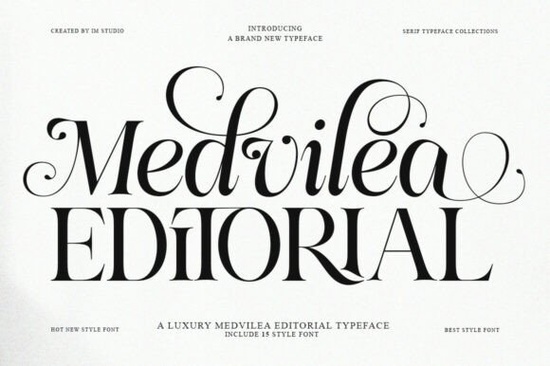
Medvilea Editorial Font
If you’re designing a high-end visual identity or a polished editorial layout, the right serif typeface can shape the entire mood. Medvilea Editorial Font gives you 15 precisely crafted styles that feel luxurious and modern without being fussy. It works beautifully for magazine headlines, fashion branding, product packaging, and any project that needs a touch of refined character.
I’ve worked with plenty of display serifs over the years, and what often makes or breaks a font family is how well the weights and widths play together. With Medvilea, you can build a complete typographic system from just one download regular, italic, condensed, expanded, and even extra-condensed italic variations all built to fit seamlessly.
What styles are included in the Medvilea family?
This collection packs 15 font styles into a single package. You get straightforward options for everyday use and more expressive alternatives for eye-catching headings.
• Standard – Regular & Italic
• Proportions – Condensed, Semi-Condensed, Expanded, Semi-Expanded, Extra-Expanded
• Dynamic variants – Semi-Condensed Italic, Extra-Condensed Italic, Expanded Italic, and additional italic combinations
The variety here is massive. Need a narrow, tall headline for a luxury fashion spread? Try the Condensed. Want a wide, confident wordmark? The Extra-Expanded variant delivers plenty of presence. Every style keeps the same subtle contrast and flowing curves, so the family never feels disjointed.
How can a multi-style serif family simplify branding projects?
Consistency across touchpoints is everything in branding. When you use multiple fonts from the same family, the underlying structure stays the same, so your business cards, social media graphics, and packaging all feel like part of the same story. Medvilea’s range means you can create clear information hierarchy light, airy italics for taglines, condensed weights for detail text, and bold expanded styles for logos without hunting for complementary typefaces.
Which projects benefit the most from a luxury editorial serif?
Designers working in fashion, beauty, lifestyle, and premium editorial spaces will find this font immediately useful. A few concrete uses:
• Fashion event posters and lookbooks – extra-condensed styles create dramatic, high-fashion headlines.
• Cosmetic and perfume packaging – the regular and italic weights add an unforced elegance to product labels.
• Luxury real estate brochures – expanded styles give a solid, trustworthy feel to property names.
• Web typography – use Semi-Condensed for site menus and Regular for pull quotes; the crisp outlines hold up well on screens.
• Craft business logos – print-on-demand sellers and small creative businesses can build memorable brand marks without hiring a custom type designer.
What multilingual support does Medvilea offer?
Many premium display fonts cut corners on language coverage, but Medvilea includes uppercase and lowercase characters plus extensive international support. Whether you’re setting a French perfume tagline, a German magazine title, or a Spanish social media quote, the full character set covers most European and Latin-based alphabets. This is a practical detail if you sell on global marketplaces or create content for diverse audiences.
How do you pair Medvilea with other typefaces?
Because Medvilea is a display serif with noticeable personality, it pairs best with neutral body fonts that don’t compete for attention. Here’s a simple starting guide:
• Clean sans‑serif – Inter, Work Sans, or Nunito Sans for modern editorial bodies.
• Soft humanist sans – Open Sans or Lato add warmth without stealing the show.
• Monospaced fonts – Space Mono or JetBrains Mono create a high-low contrast that works well for avant‑garde fashion content.
Always test your pairings at the sizes you’ll actually use. Medvilea’s fine details can get lost at very small text sizes, so keep it for headlines and larger UI elements.
Getting started with the Medvilea editorial collection
If you’re ready to add this typeface to your toolkit, this quick checklist will help you put the 15 styles to work right away:
1. Decide on your primary use logo, headline, packaging, or social asset.
2. Pick one or two key weights (e.g., Regular + Semi-Condensed) to anchor your hierarchy.
3. Experiment with width variations for contrast pair a condensed title with an expanded subtitle.
4. Test on both light and dark backgrounds; Medvilea’s smooth curves look crisp on both.
5. Pair it with a clean sans‑serif for any body copy you need to include.